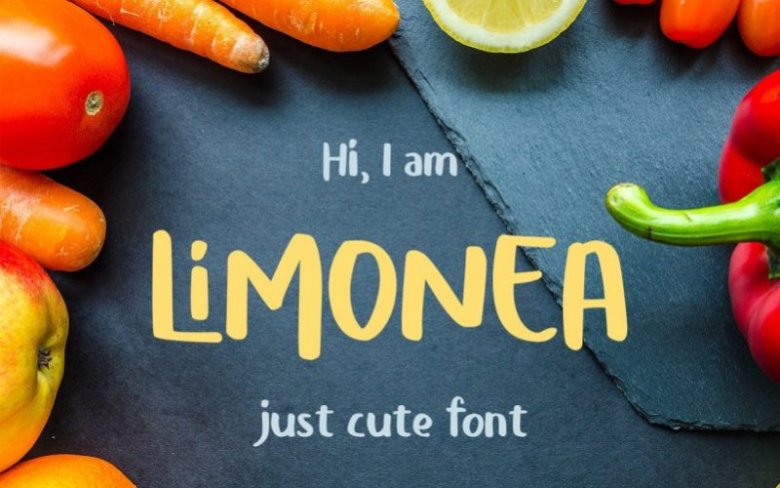
Limonea Display Font
Introducing Limonea Font! The vintage all caps marker font you’ve been searching for!
This little gem is perfect for your special projects like headers, packaging, crafts, greeting cards and anything you can come up with.
It comes with a lot of opentype ligatures in order to give your design a unique look. Last but not least Limonea supports multilingual and includes Greek alphabet with opentype features as well.